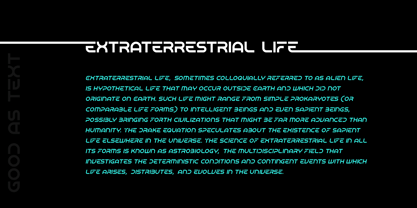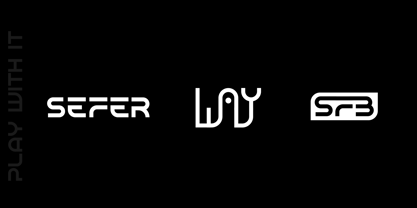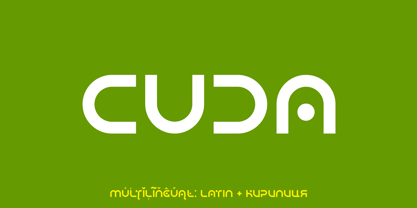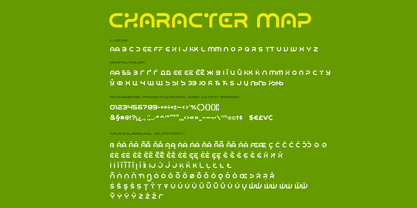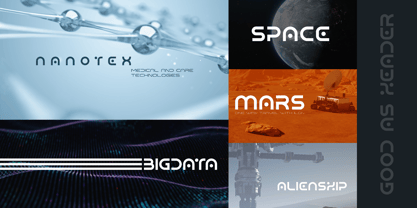
Cuda
by Sentavio
The Cuda Font Family was designed by Dmytro Poliakh and published by Sentavio. Cuda contains 2 styles and family package options.
CUDA font creates futuristic hi-tech atmosphere and style.
It is good looking as header and as text both. Use it in your projects in such areas as robots & androids, hi-tech, future, virtual reality, space, sport and many others.
Designers: Dmytro Poliakh
Publisher: Sentavio
Foundry: Sentavio
Design Owner: Sentavio